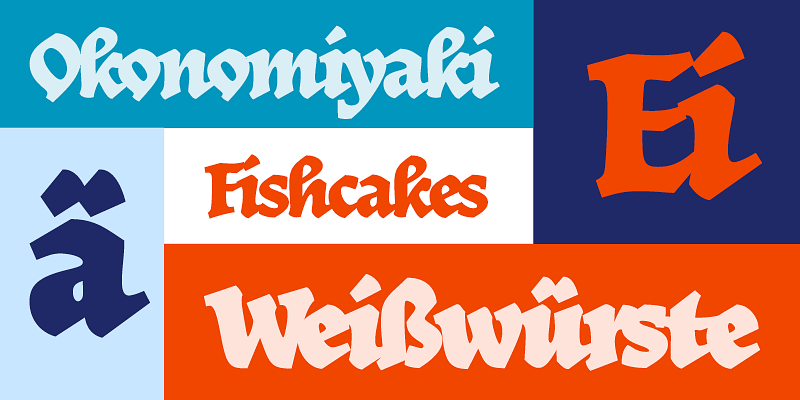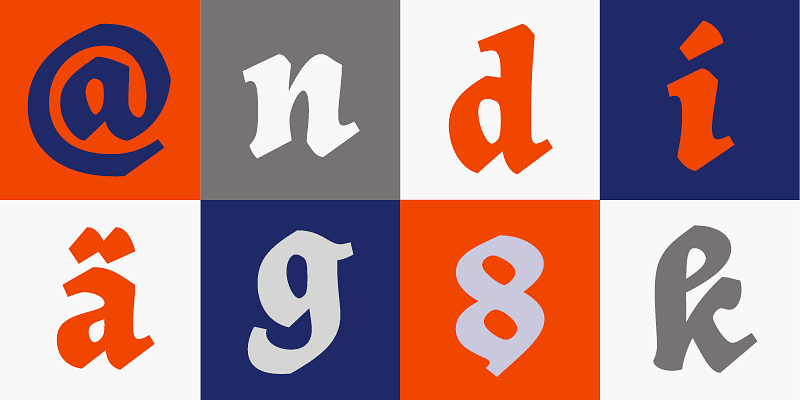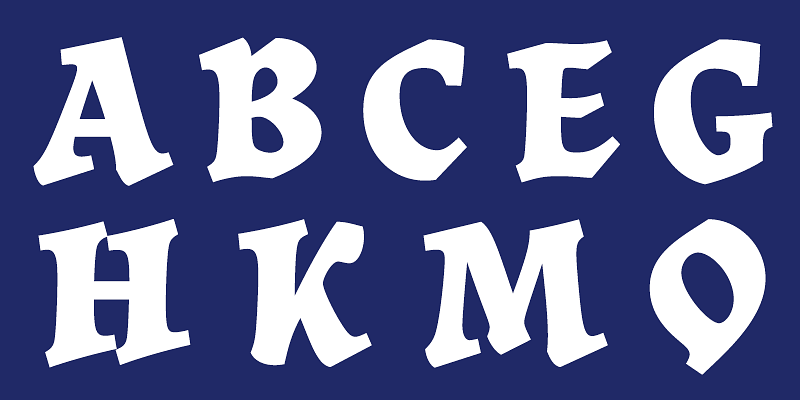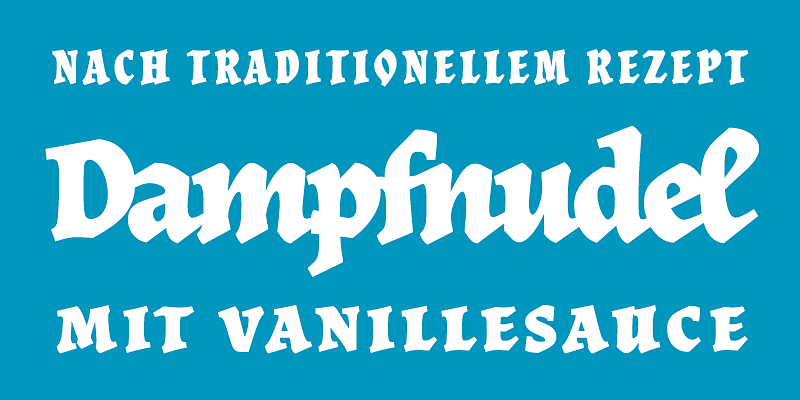
Just Another Foundry
Founded in 2004, Just Another Foundry is a German type design studio operated by Tim Ahrens and Shoko Mugikura – a type designer and a typographer, respectively.
Our work includes JAF Lapture and JAF Herb (ATypI letter.2 winner) – a new interpretation of German blackletter tradition – and the all-round sans serif superfamily JAF Bernini Sans (TDC2 2012 winner).
We also worked on several custom and customised type design projects for clients such as Crown Equipment Corporation, OECD and Seiko Watch Corporation.